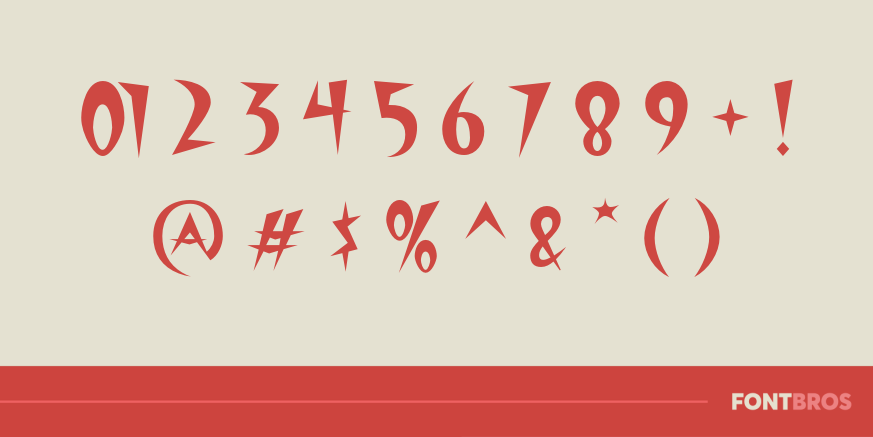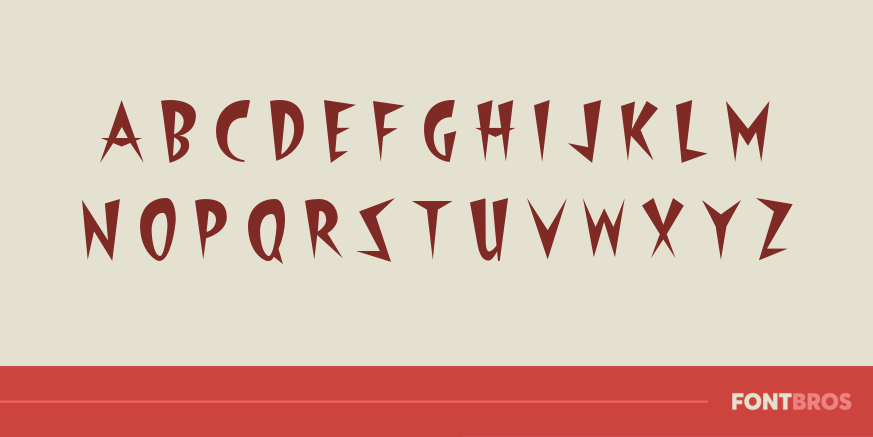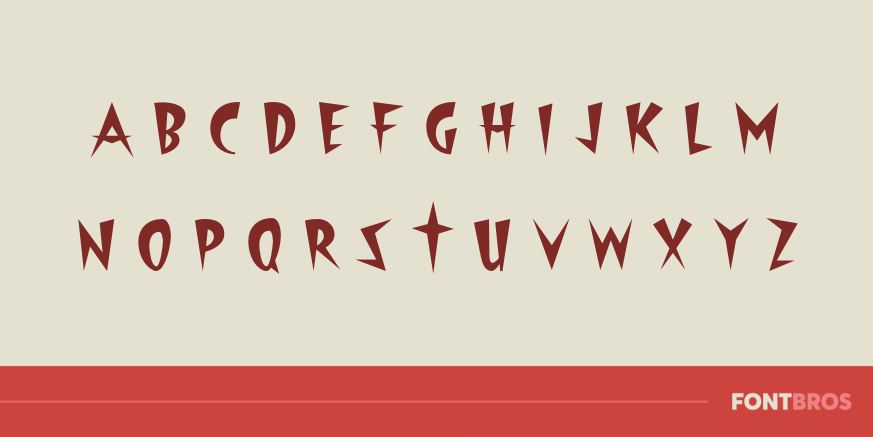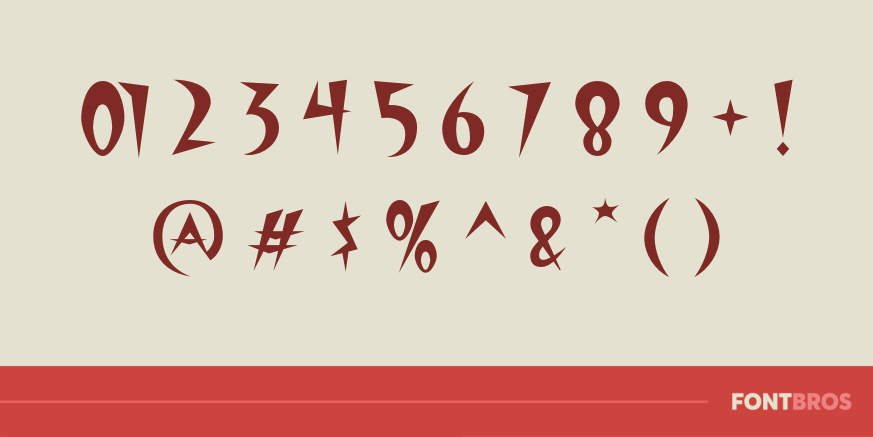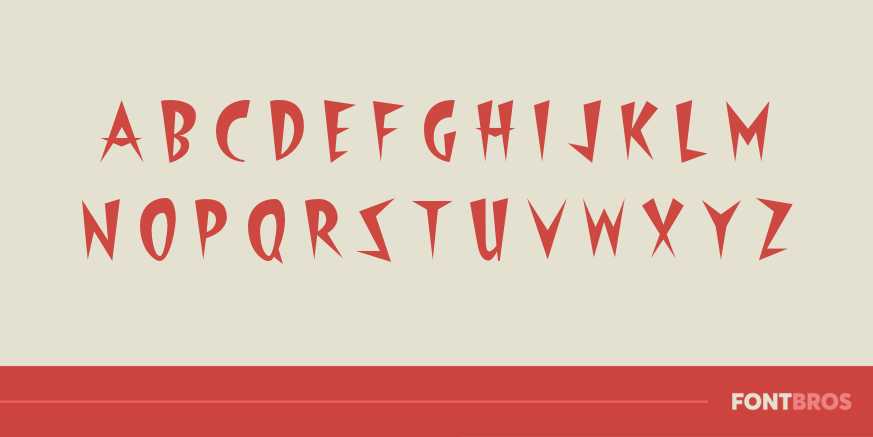
Starburst Lanes
Font Family by Font Diner
Grab your bowling shoes gang, it's time to strike out at Starburst Lanes! This futuristic Google inspired font is sure to keep 'em bowling the night away!